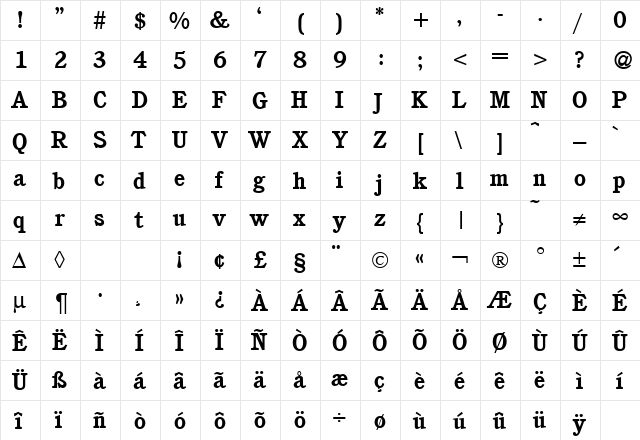
CushingNova Bold
Design Context for CushingNova Typeface
CushingNova is a composed and adaptable typeface that performs quietly and consistently across a wide range of design contexts. The heavy weight commands attention and anchors typographic hierarchies.
Pro Tip: Use CushingNova in both headline and body roles to test its range before committing to a single application.